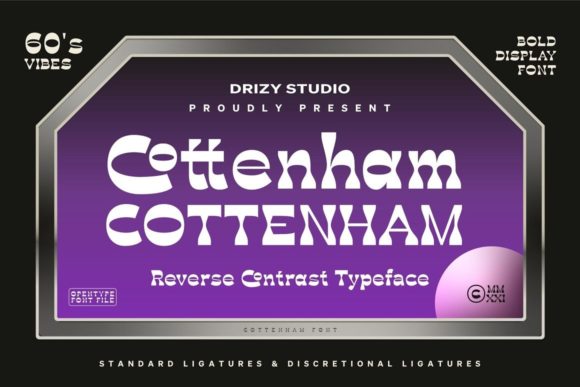
Choosing Cottenham for a Standout Campaign Typography
It's 9 AM on launch day, and I'm staring at the final graphic. The email banner needs to go out in twenty minutes, but something feels off. The headline—our big, bold promise—just isn't landing. It blends into the background image, looking like every other tech announcement in the feed. This is the moment where your campaign's first impression is decided, and the typography you choose is the silent ambassador of your message. That's when I swapped out the generic sans-serif for Cottenham. The transformation wasn't just visual; it was strategic. Suddenly, our headline had a voice.
Cottenham Font for Sci-Fi and Futuristic Campaign Themes
Cottenham is a display font that doesn't whisper; it declares. Its unique futuristic character isn't about generic sleekness—it carries a distinct personality, a mood of forward-thinking clarity and bold confidence. When you're crafting a campaign for a new product launch, a cutting-edge webinar, or a series exploring future trends, Cottenham becomes your visual shorthand for innovation. Its forms are crafted to elevate the look of any creative project, giving your message an immediate aura of authority and excitement. In a digital landscape crowded with safe choices, this font ensures your visuals don't just participate; they lead.
Using Cottenham in Movie Titles and YouTube Thumbnail Sets
Consider your YouTube series or webinar promotion. The thumbnail is a tiny battlefield for attention. Cottenham, as a wonderful choice for movie titles, translates perfectly to this digital arena. I used it for a weekly tech explainer series. Each thumbnail featured a short, punchy episode title set in Cottenham over a dynamic background. The font's sharp, clean futurism made the text pop even at the smallest mobile preview size, creating a consistent and recognizable visual signature across the entire playlist. It signaled "high-value content" before anyone clicked.
Cottenham for Posters and Digital Ad Campaigns
When scaling a campaign across platforms—from Instagram carousel ads to Pinterest pins—consistency in tone is crucial. Cottenham excels here. For a recent product launch, we built a complete promotional content set: hero banners for the website, square posts for social feeds, and tall graphics for Pinterest. Using Cottenham for all key headlines and callouts (like "Launch Day" or "Limited Access") created a seamless visual thread. Posters, as mentioned in its description, rely on bold typography to stop a viewer. In a fast-scrolling feed, a digital ad with a headline set in Cottenham performs the same function. It breaks the scroll rhythm, demanding a moment of focus.
How Cottenham Enhances Readability for Science Magazines and Webinars
Readability isn't just about legibility; it's about comprehension at speed. Cottenham's design supports clear visual hierarchy. For a webinar promoting a complex scientific topic, I paired Cottenham (used for the main title "The Future of AI") with a clean, neutral sans-serif for the body text and details. The contrast was perfect. The futuristic display font grabbed interest and framed the topic's mood, while the supporting typography offered easy reading. This pairing strategy—using Cottenham for short, impactful headlines or decorative titles—ensures your core message is stronger and easier to recognize, whether on a dark email banner or a light blog header.
Integrating Cottenham into Social Media Graphics and Reels Covers
A campaign isn't one graphic; it's a system. For an Instagram content series, I used Cottenham to stylize the series name on every Reels cover and quote graphic. This font’s unique character helped build brand recognition within the campaign itself. Audience engagement often starts with visual cohesion; seeing that distinct typographic style across posts creates a subconscious link, turning individual posts into a familiar narrative. For a seasonal sale announcement, a single word like "FLASH" in Cottenham, overlaid on a product image, communicated urgency and modernity far more effectively than a standard bold typeface.
Practical Font Pairing with Cottenham for Campaign Consistency
To wield a powerful display font like Cottenham effectively, you must pair it wisely. It works best as the primary voice for your campaign's loudest statements: headlines, campaign labels, logo-style text, and key callouts. For all supporting text—body copy, captions, URLs, dates—a simple, versatile sans-serif is ideal. This creates a modern typography system where Cottenham provides the personality and punch, and the secondary font handles the quiet, essential information. This balance is key for landing page headers, email banners, and branded templates where both impact and clarity are non-negotiable.
Checking Cottenham Font Files for a Professional Workflow
Before committing any font to a client campaign or commercial ad set, a practical check is essential. For Cottenham, ensure the licensed font files include the styles and features you need. Does it have the alternates or ligatures that might add a unique twist to a key headline? Confirm its multilingual support if your campaign targets global audiences. As a professional display font, it should offer clean rendering across file formats for use in web design, social media graphics, and even packaging design mockups. Knowing your tools inside-out prevents last-minute technical hiccups and lets you focus on creative strategy.
Cottenham for Book Titles and Branded Content Series
The application extends beyond single campaigns. Imagine building a long-term branded content series, like a sequence of expert whitepapers or an editorial blog on innovation. Using Cottenham for each publication's title or series logo establishes a sophisticated, forward-looking brand identity. It's a wonderful choice for sci-fi books, and that same evocative power translates to authoritative business or tech content. This font becomes part of your asset library, a go-to design asset for any project that needs to communicate cutting-edge ideas with visual confidence.
In the end, my launch-day email banner went out with its headline transformed by Cottenham. The difference was palpable. The message felt clearer, more intentional, and visually distinct from our competitors. Choosing a font is never just a decorative decision; it's a communication strategy. Cottenham, as a unique futuristic display font, offers that strategic advantage. It elevates the look by elevating the meaning, turning ordinary campaign visuals into memorable, compelling conversations with your audience. When your next product launch, seasonal sale, or content series is on the board, consider giving your biggest statements this distinct voice.